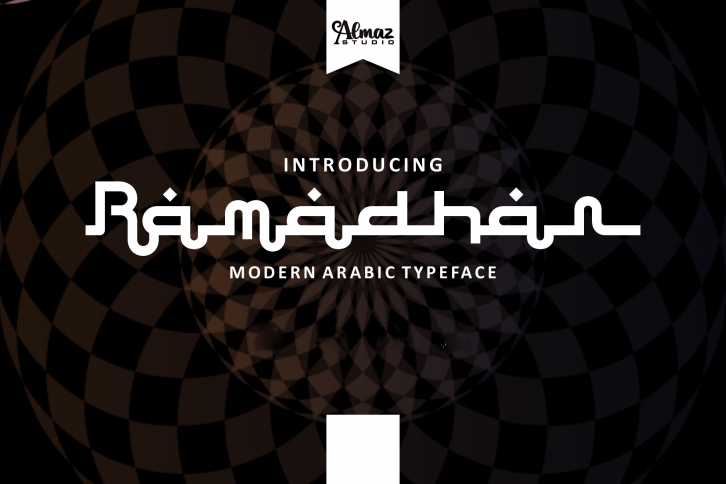
Introducing Ramadhan, an Arabic-styled display typeface. This Arabic font is perfect for any graphic design related to the Islamic style. It was designed with a digital flat-pen and gothic typography technique, which gives the elegant looks of the letters. This font is also adopted from the Hijaiyah letters that are highly usable for any Islamic or Mid-east content. Perfect for Book covers, posters, flyers, banners, t-shirts, logos, branding, and other advertising needs.
It’s an Arabic mimicking display font with an original style.